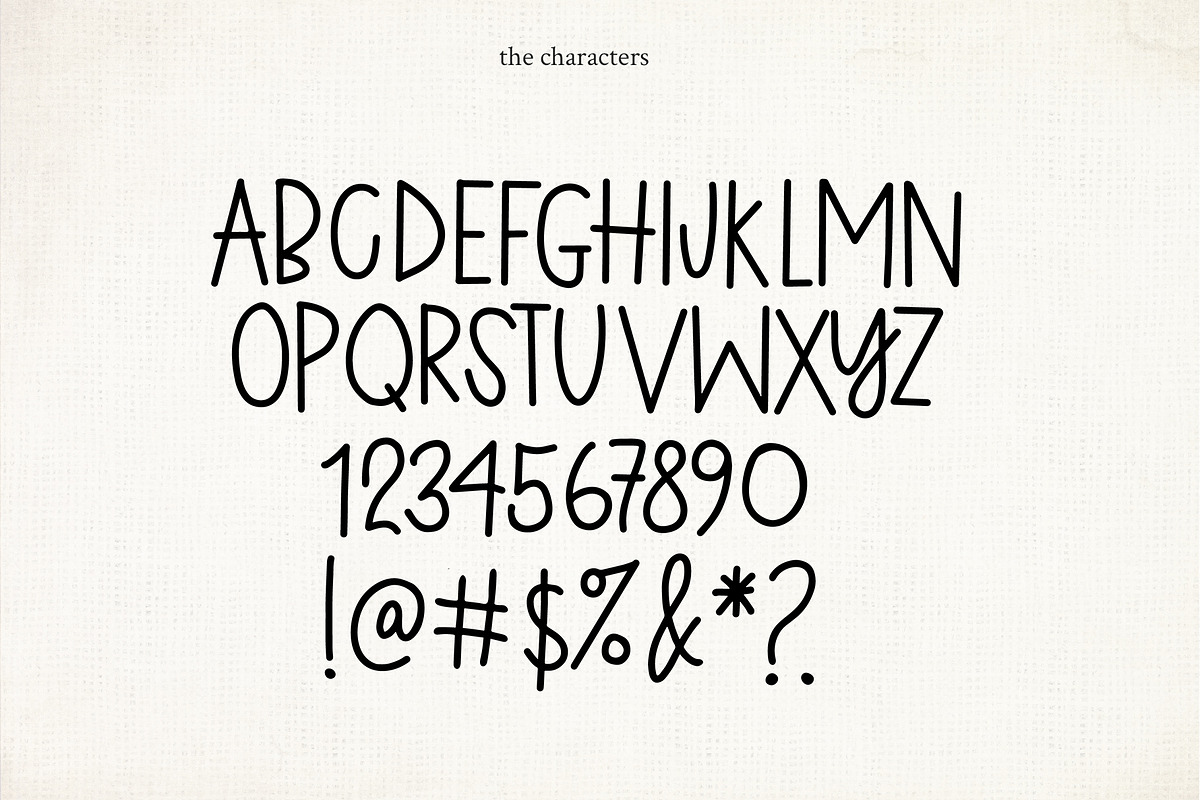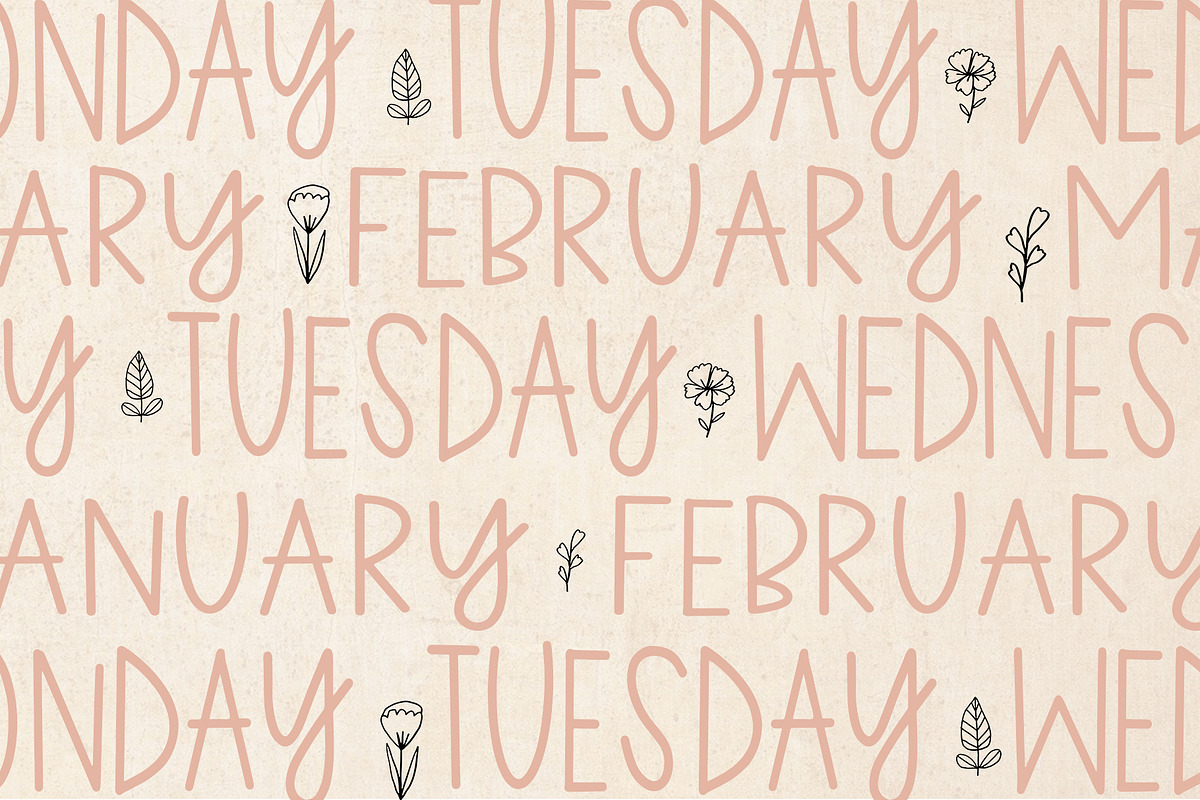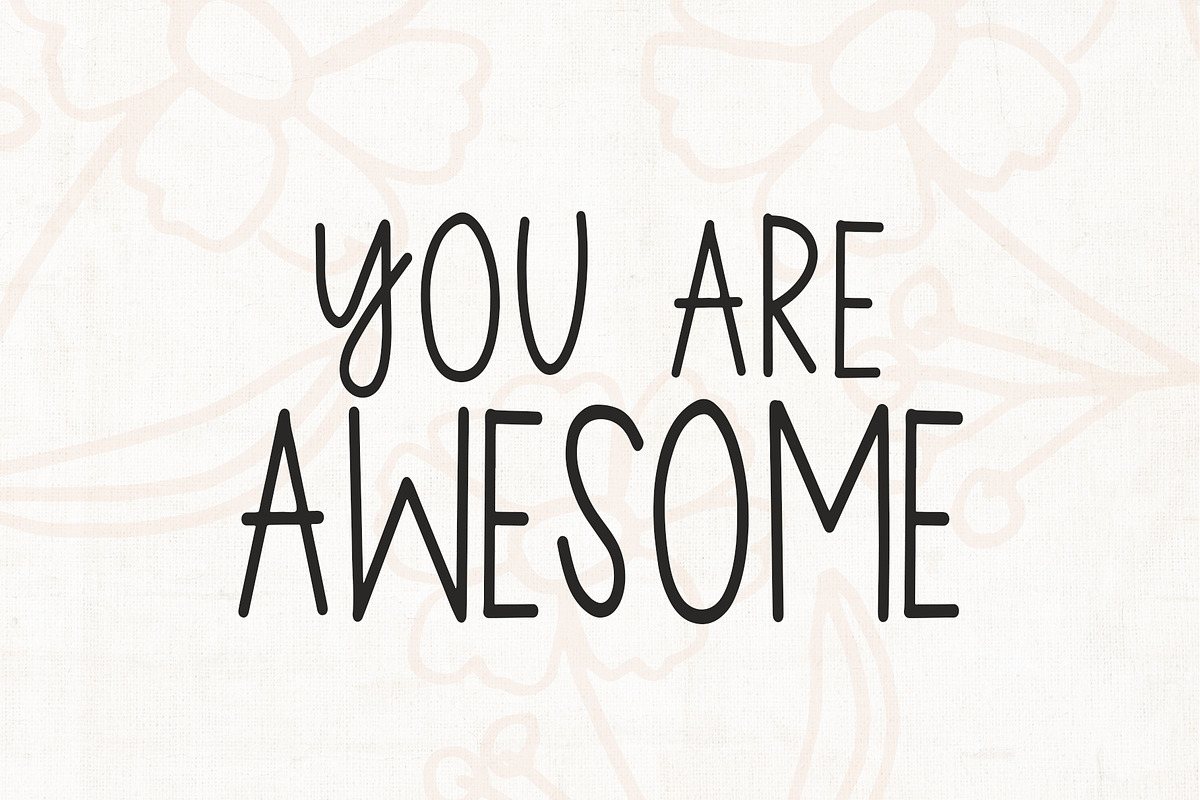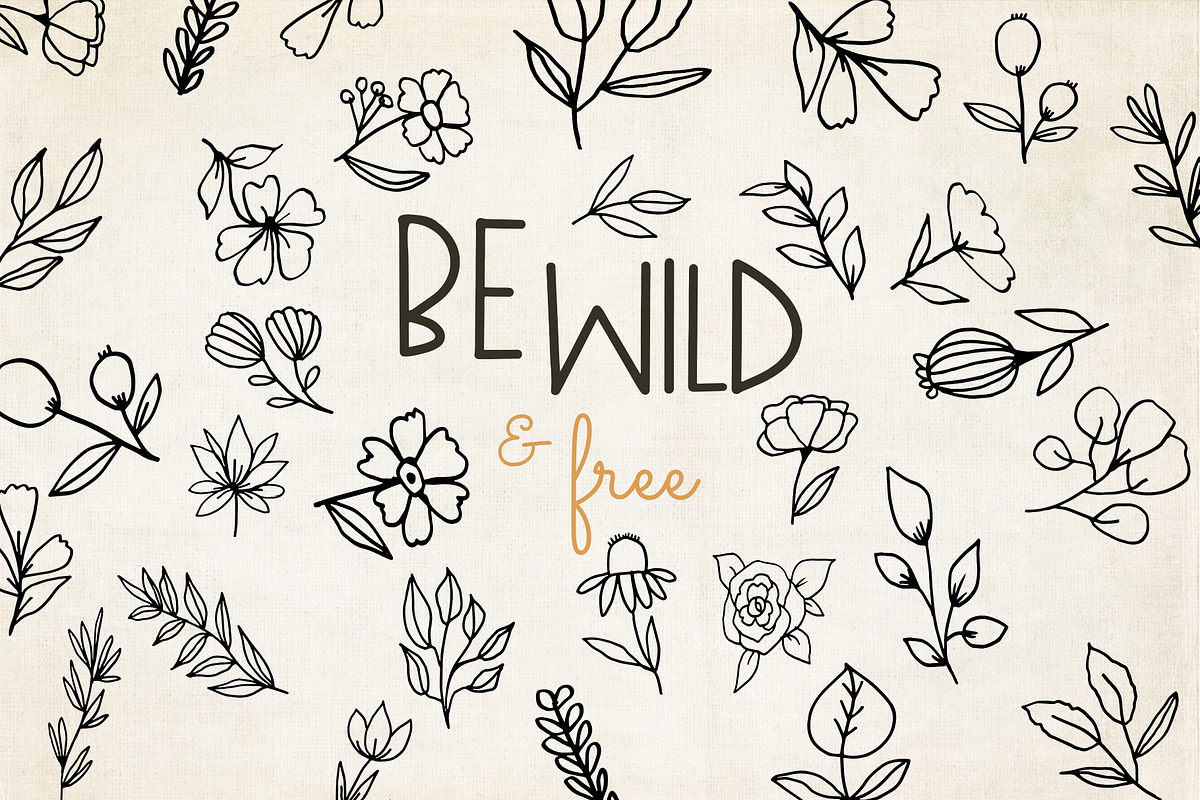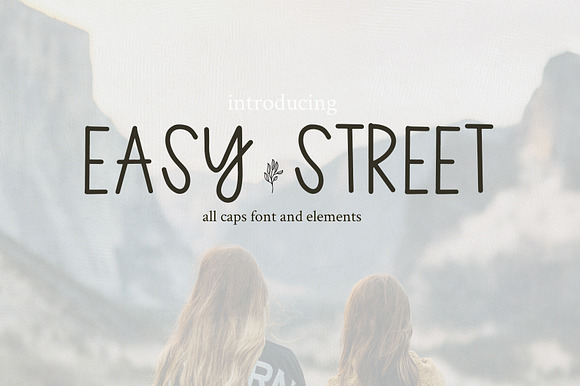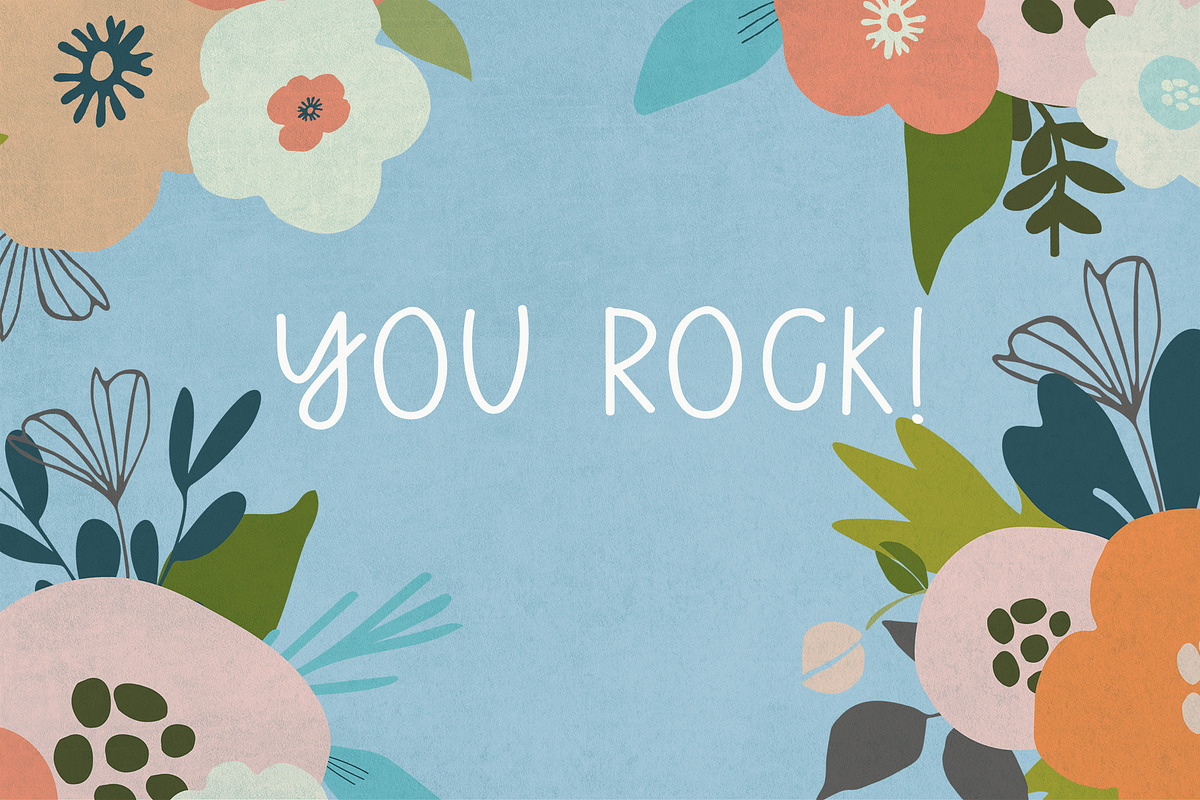
Easy Street All Caps Font
Welcome to Easy Street. This is a simple all caps, no-frills font. It is perfect for quotes, headlines, and logos. -Include OTF font No Accent characters with this font. BONUS includes 55 hand drawn PNG flowers (separate file) to add a little bit of charm and whimsy to your designs. Enjoy.